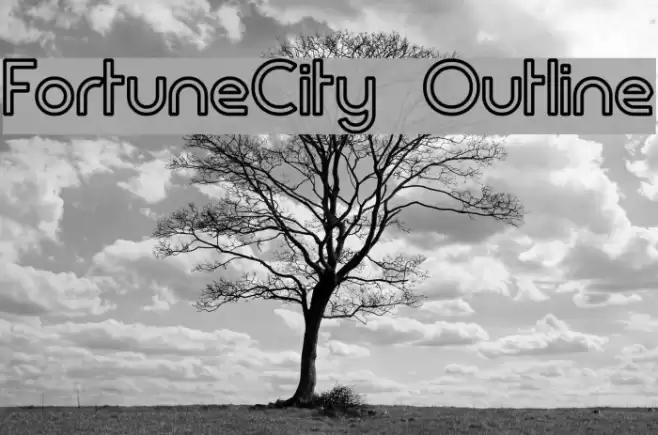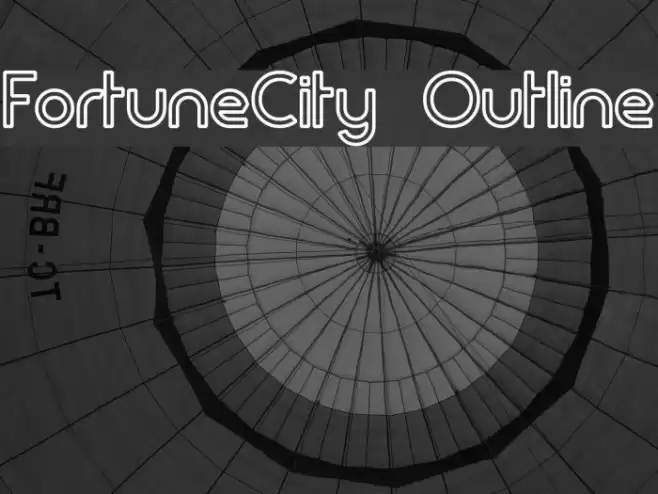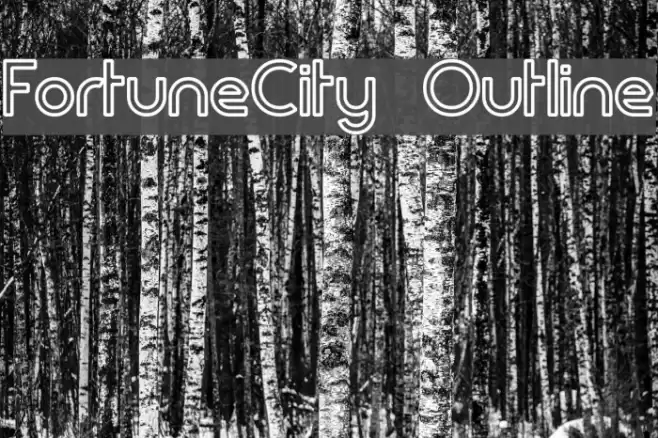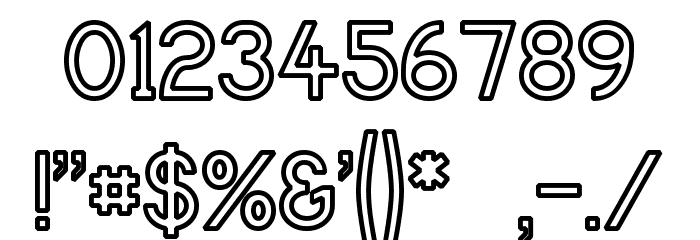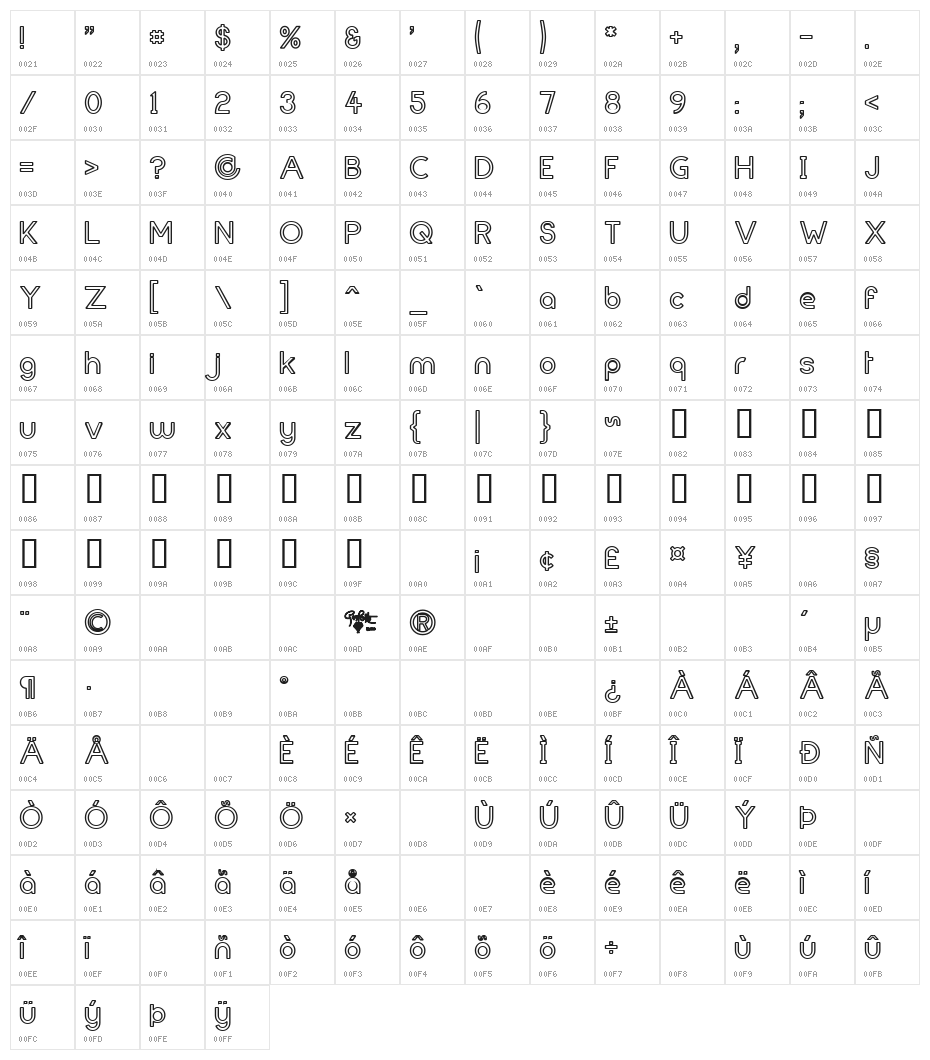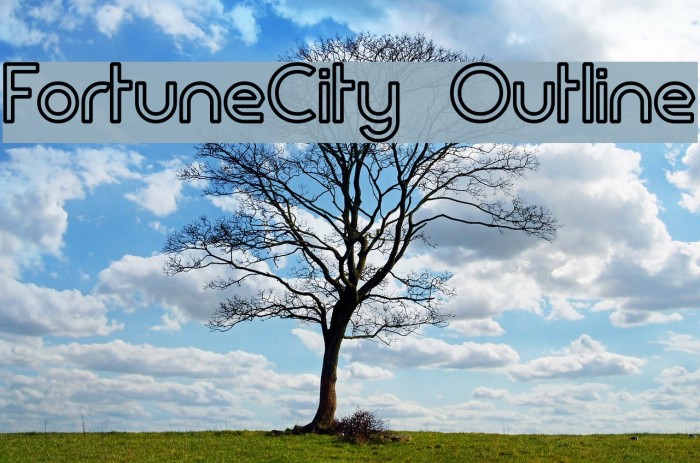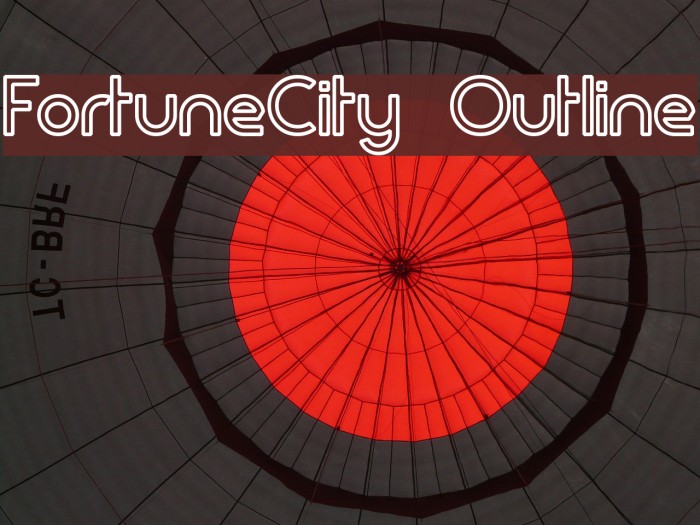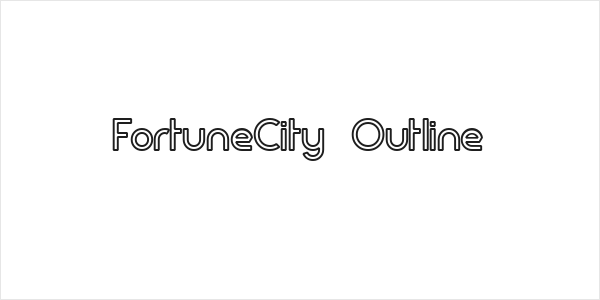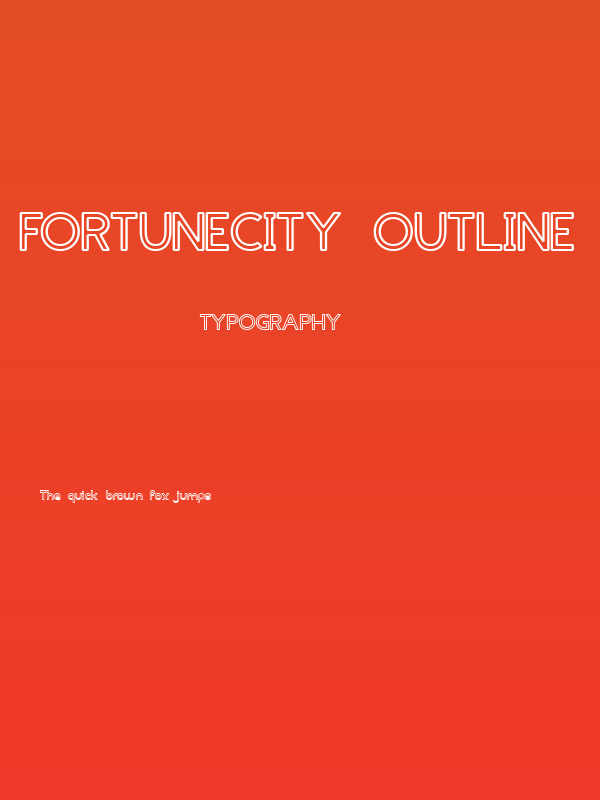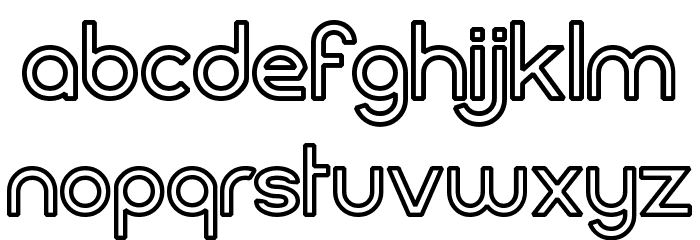
FortuneCity Outline Font
FortuneCity Outline Description
This font features a modern and clean outline style, characterized by its geometric shapes and uniform line thickness. The uppercase and lowercase letters maintain a consistent height and width, creating a harmonious and balanced appearance. The numbers and special characters are designed to complement the alphabet, ensuring readability and aesthetic appeal. The font's open and airy design makes it suitable for various applications, providing a contemporary and stylish look.
A modern, geometric outline font with consistent line thickness from Modern fonts.
- Proposed Projects: Ideal for branding, posters, headlines, and digital media where a modern and clean aesthetic is desired.